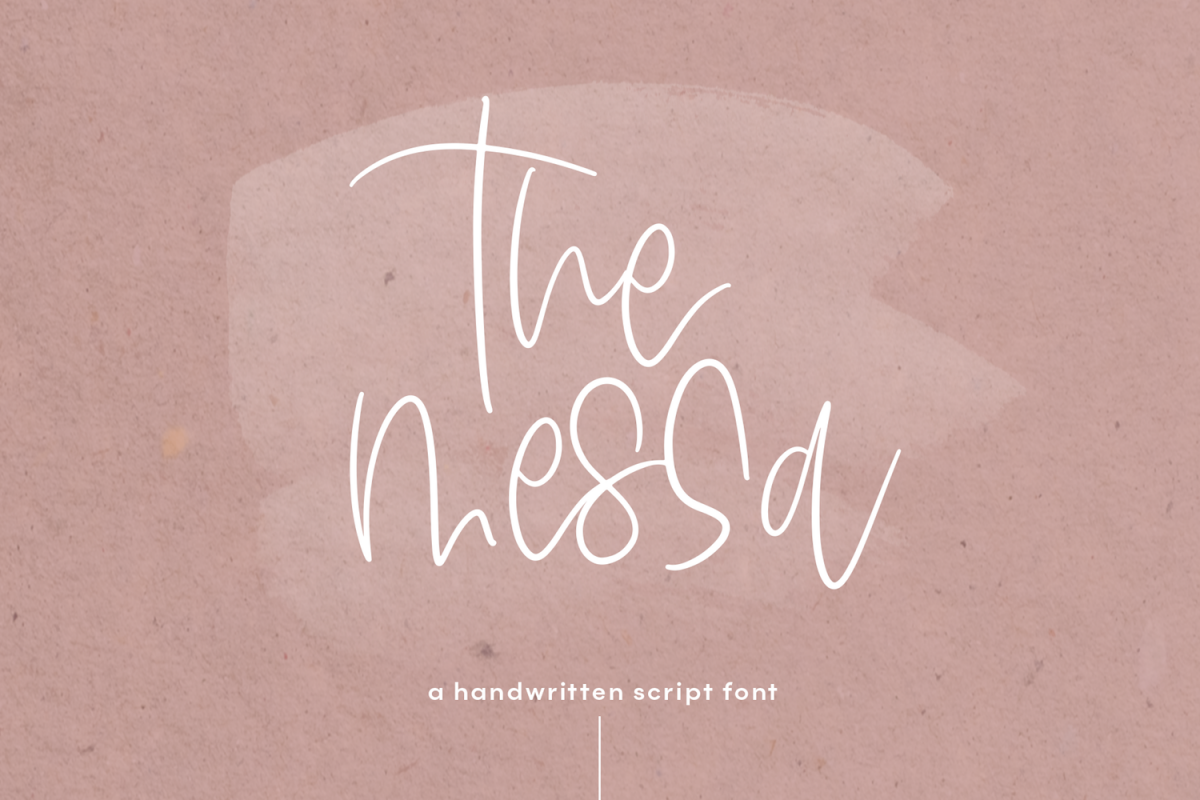
The Messa - A Handwritten Script Font
The Messa is an elegant, yet modern handwritten font.
This font is perfect for quotes, headings, designs, logos, invitations and more!